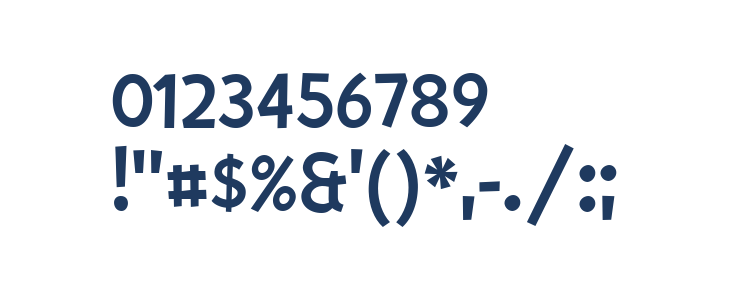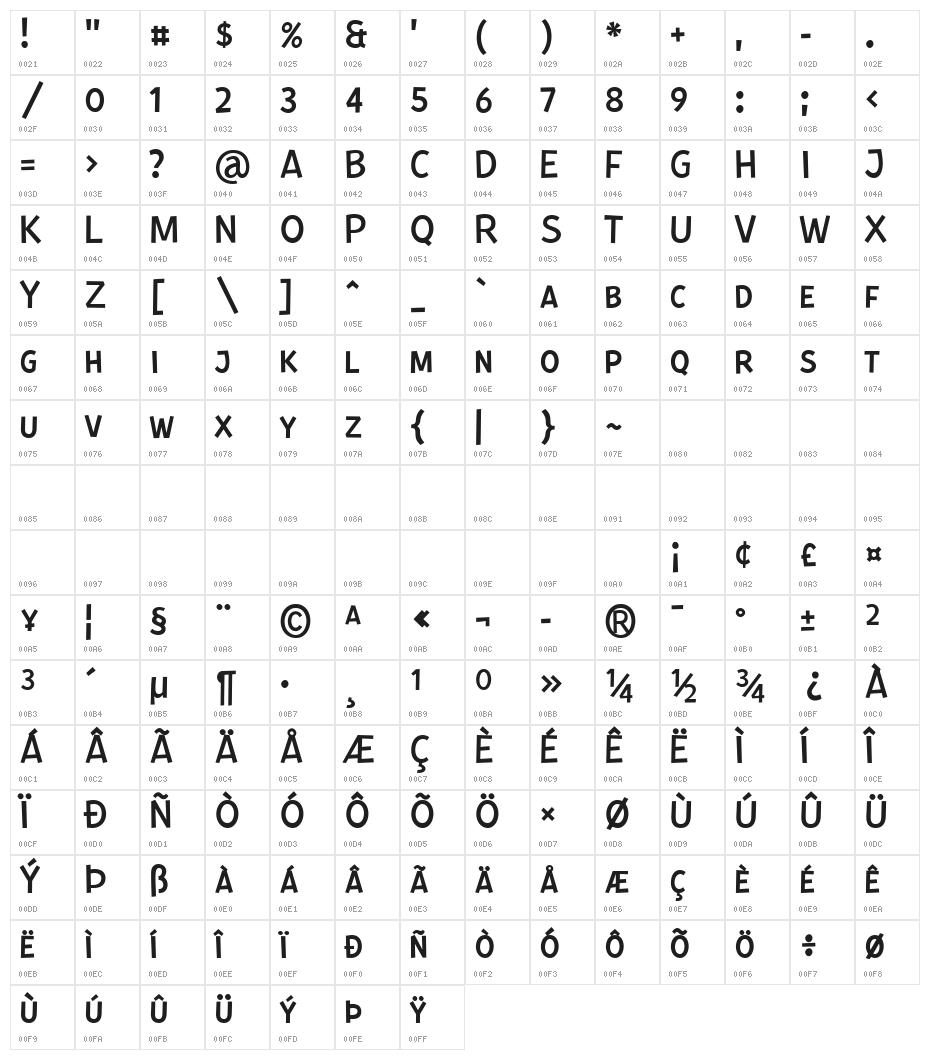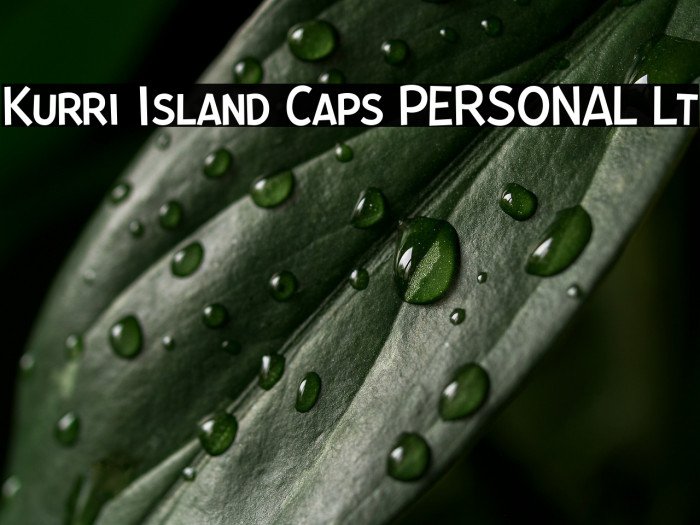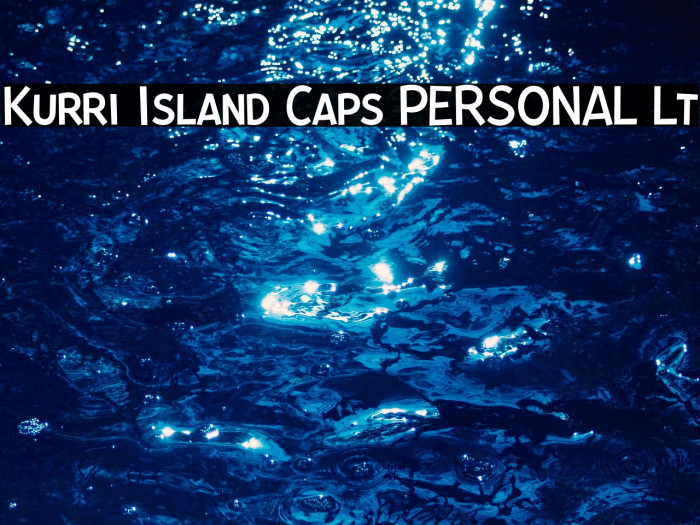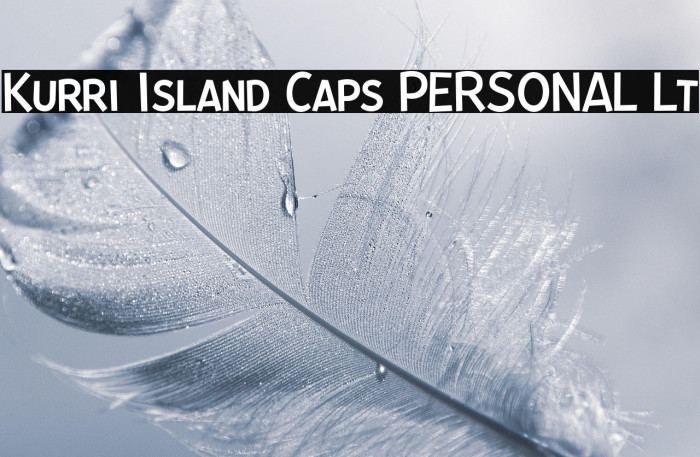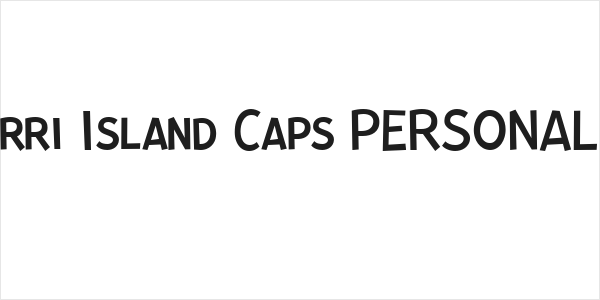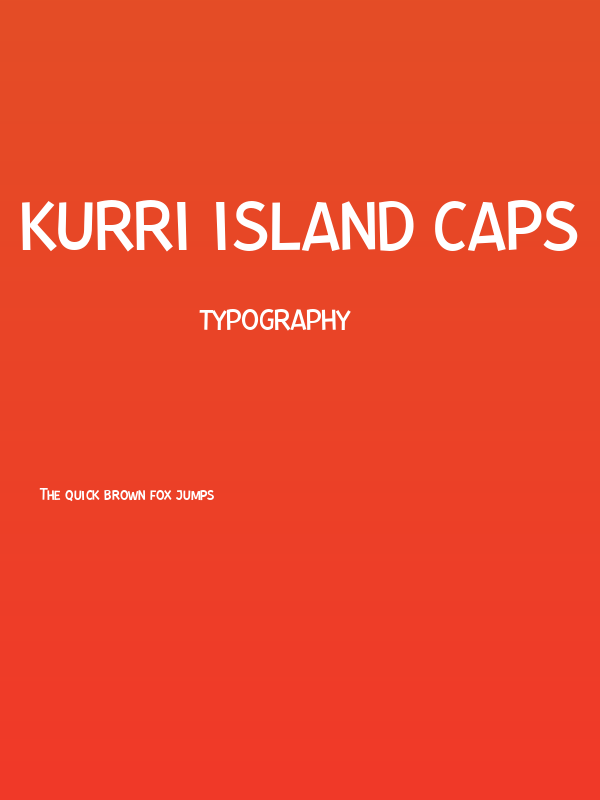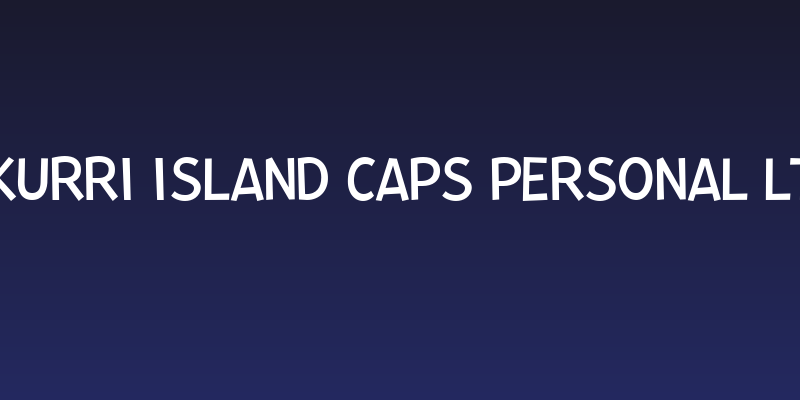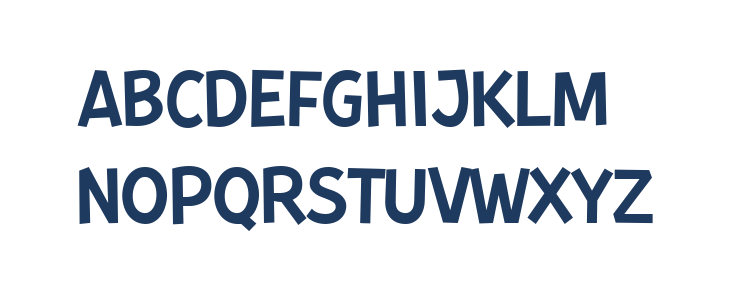
Kurri Island Caps PERSONAL Lt Font
Kurri Island Caps PERSONAL Lt Description
This font features a playful and bold style with a slightly irregular and hand-drawn appearance. The uppercase letters are prominent and have a casual, friendly vibe, making them suitable for informal and creative projects. The numbers and special characters maintain the same whimsical style, ensuring consistency across different uses. The strokes are thick and uniform, providing a strong visual impact. This font is ideal for projects that require a touch of personality and fun, such as children's books, posters, or branding for creative businesses.
| Overall Style | Playful, Casual, Hand-drawn |
| Use Case | Headlines, Posters, Branding |
| Proposed Projects | Children's books, creative posters, branding for artistic businesses. |